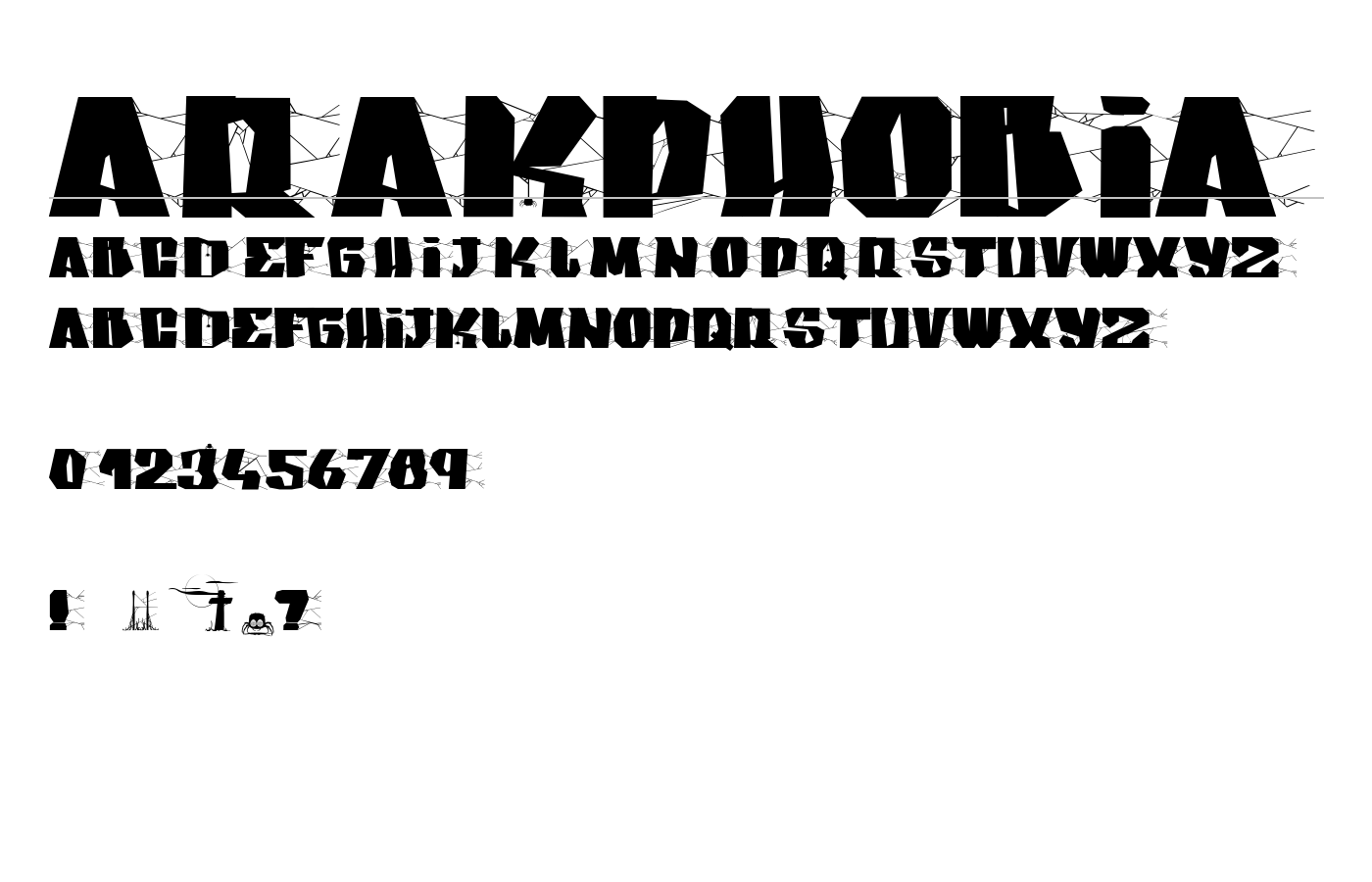
Arakphobia is a bold, condensed display font with a rugged, almost cracked texture that gives it a distressed and edgy look. Its strong geometric shapes and sharp angles combined with unique spider web details make it perfect for creating a striking, intense atmosphere, ideal for horror-themed designs or edgy branding. This font excels in headlines, posters, and logos where a dramatic and attention-grabbing impact is needed.
Arakphobia Font
About Arakphobia Font